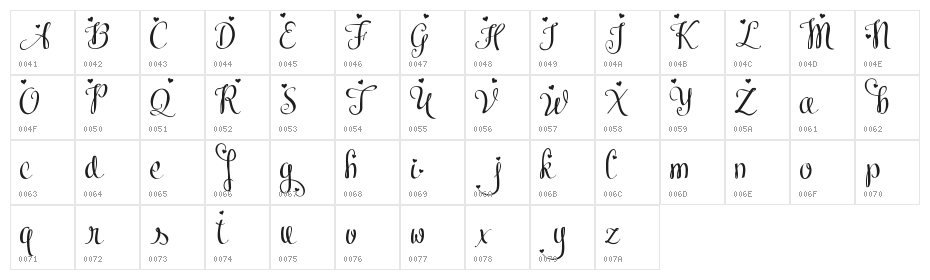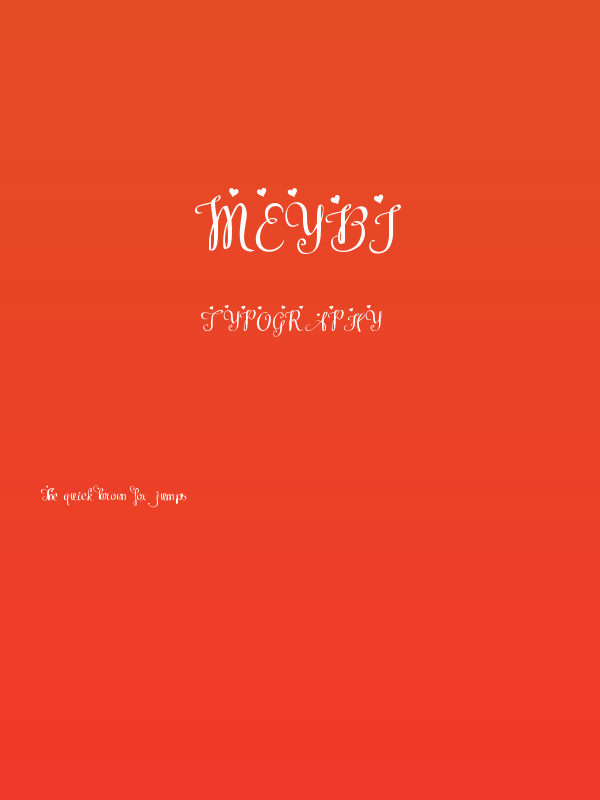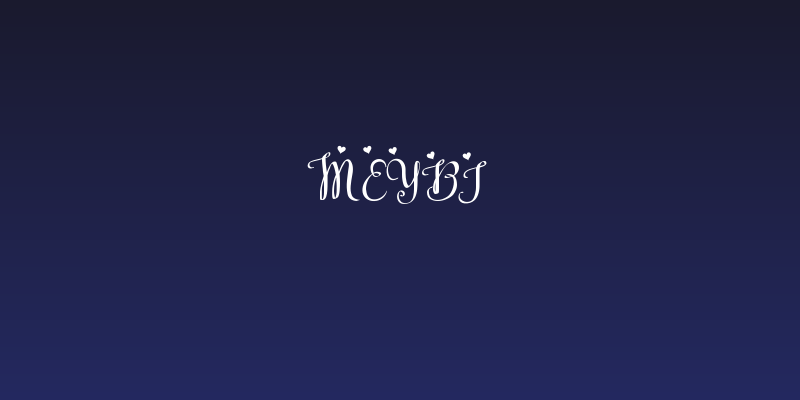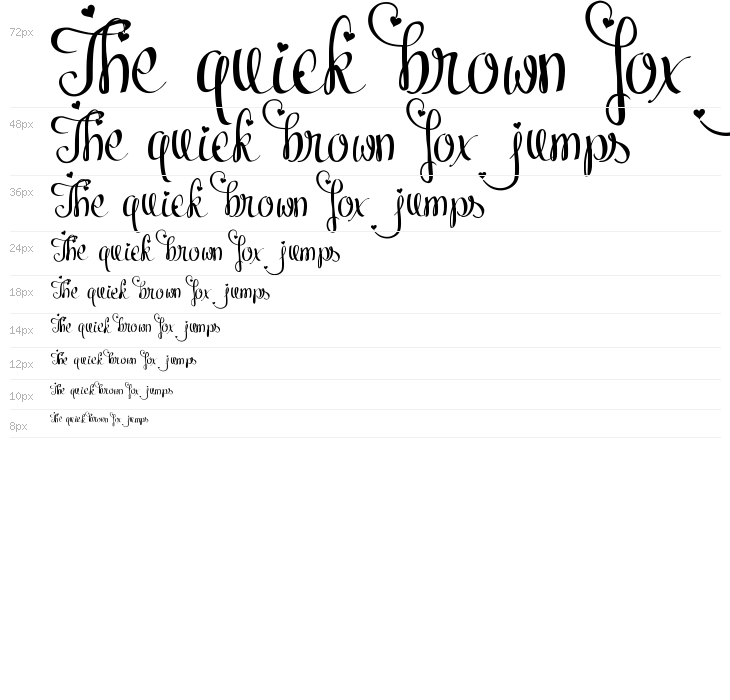
Meybi Font
Meybi Description
This font features a whimsical and romantic style, characterized by elegant, flowing script letters adorned with small heart motifs. The uppercase and lowercase letters are designed with a playful yet sophisticated flair, making them ideal for projects that require a touch of charm and elegance. The strokes are moderately thick, providing a balanced contrast that enhances readability while maintaining a decorative appeal. The inclusion of heart accents adds a unique and personal touch, making it suitable for creative and expressive designs.
Use CaseHeadlines, Invitations, Decorative text
Proposed ProjectsIdeal for wedding invitations, greeting cards, love letters, and branding that requires a romantic or playful touch.